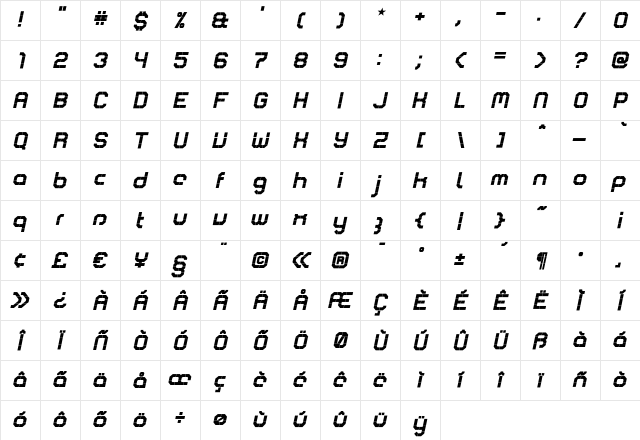
Comsat Navy-Storm
Style: Navy-Storm
Comsat Family
Design Context for Comsat
Comsat is a composed and adaptable typeface that performs quietly and consistently across a wide range of design contexts.